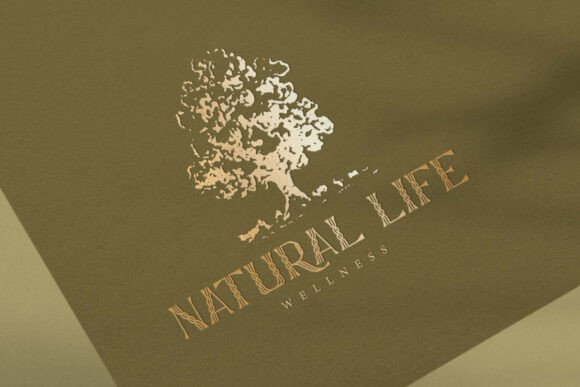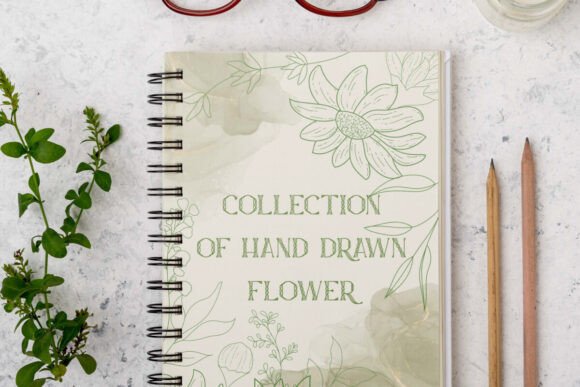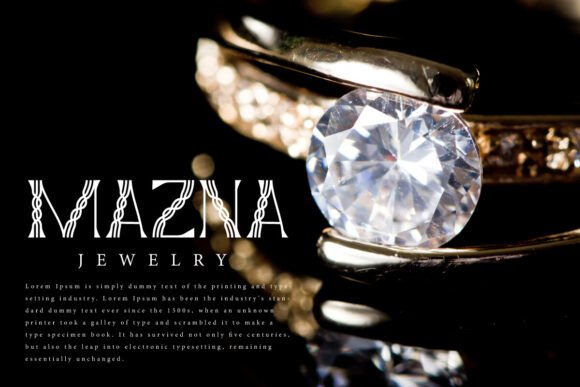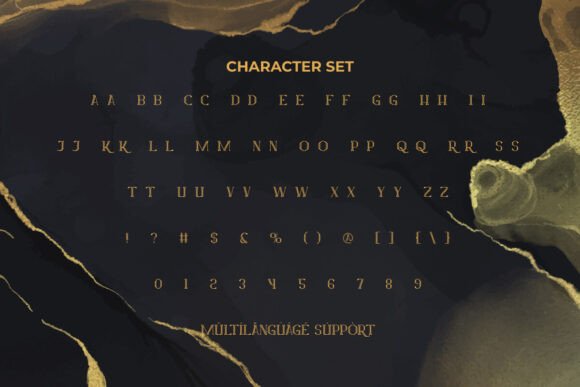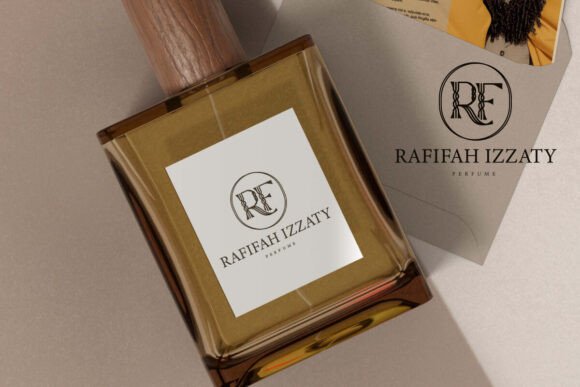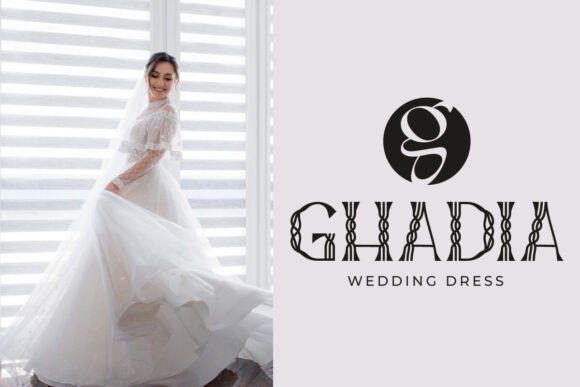
Introducing Georgano Font: The Epitome of Luxury and Elegance
In the realm of typography, few fonts manage to convey the essence of luxury and sophistication as effectively as Georgano. This contemporary serif display font is a masterclass in blending modernity with a uniquely retro flair, making it an indispensable asset for designers and crafters aiming to infuse their projects with a touch of elegance and refinement.
The Royal Treatment: Elevating Designs with Georgano
Georgano’s design is characterized by its distinctive serif features, which lend it an air of classic sophistication. When paired with gold – a color historically associated with opulence and grandeur – this font transcends mere typography, becoming a statement piece that can elevate any design to regal heights. Whether you’re working on a luxury brand’s marketing materials, a high-end product catalog, or an exclusive invitation, Georgano’s royal touch is sure to leave a lasting impression.
Versatility Unleashed: Diverse Applications of Georgano
One of the standout qualities of Georgano is its incredible versatility. This font isn’t confined to a single application or medium; rather, it can be seamlessly integrated into a wide array of design projects. Here are just a few examples of how Georgano can be used:
- Catalogs and Brochures: Make your product listings or service offerings stand out with Georgano’s luxurious feel.
- Custom Designs: From bespoke stationery to personalized gifts, Georgano adds a touch of sophistication.
- Greeting Cards and Invitations: Make any occasion special with elegant and refined typography.
- Labels and Product Packaging: Elevate your brand’s packaging to convey luxury and quality.
- Magazines and Posters: Use Georgano to highlight headlines or key messages in your publications.
- Screen Printing and Signage: Create visually striking signage or apparel with this versatile font.
- Stationery and Websites: Consistency in branding is key, and Georgano can be a valuable asset across digital and print platforms.
This extensive range of applications makes Georgano an invaluable tool for designers and crafters who seek to create cohesive, high-end branding across various mediums.
Crafting Identity with Georgano
In today’s competitive design landscape, establishing a unique identity is crucial. Georgano offers a distinctive aesthetic that can help designers and brands differentiate themselves. Its blend of contemporary flair and retro luxury touch not only captures attention but also communicates a sense of sophistication and refinement.
Technical Considerations and Best Practices
When incorporating Georgano into your designs, consider the following best practices to maximize its impact:
- Pairing: Experiment with pairing Georgano with complementary fonts to create visual interest and hierarchy.
- Color Usage: While gold is a classic pairing, don’t be afraid to explore other metallic colors or rich tones that complement Georgano’s luxurious feel.
- Spacing and Kerning: Pay attention to spacing and kerning to ensure that the font’s elegant features are showcased to their fullest potential.
Georgano font represents a unique fusion of contemporary design principles and timeless luxury, making it an exceptional choice for designers and crafters looking to imbue their projects with a sense of elegance and sophistication. Its versatility, paired with its distinctive aesthetic, positions Georgano as a valuable asset in the world of typography. Whether you’re aiming to create a lasting impression with a luxury brand or simply seeking to elevate your design work, Georgano is poised to become an indispensable part of your creative toolkit.